Top Free Alight Motion Fonts to Elevate Your Videos Today
When it comes to creating visually stunning videos, Alight Motion has become a go-to tool for content creators, filmmakers, and graphic designers. But what truly sets your videos apart is the typography you use. The right font can elevate your video’s aesthetic, convey the right mood, and make your message more impactful. That’s why choosing the best Alight Motion fonts is crucial for anyone looking to create professional-quality content.
Typography plays a key role in video editing, and with the right Alight Motion text styles, you can make your videos stand out in a crowded digital space. Let’s dive into the list and explore the top fonts that will take your video editing game to the next level.
Noelan Script
Noelan Script is an elegant and versatile script font that adds a touch of sophistication to any video project. Its flowing, hand-lettered style makes it perfect for titles, captions, and branding elements in Alight Motion. Whether you’re creating a wedding video or a promotional ad, Noelan Script’s graceful curves and clean lines will give your project a polished, professional look. Download this font for free and elevate your video typography with its timeless appeal.
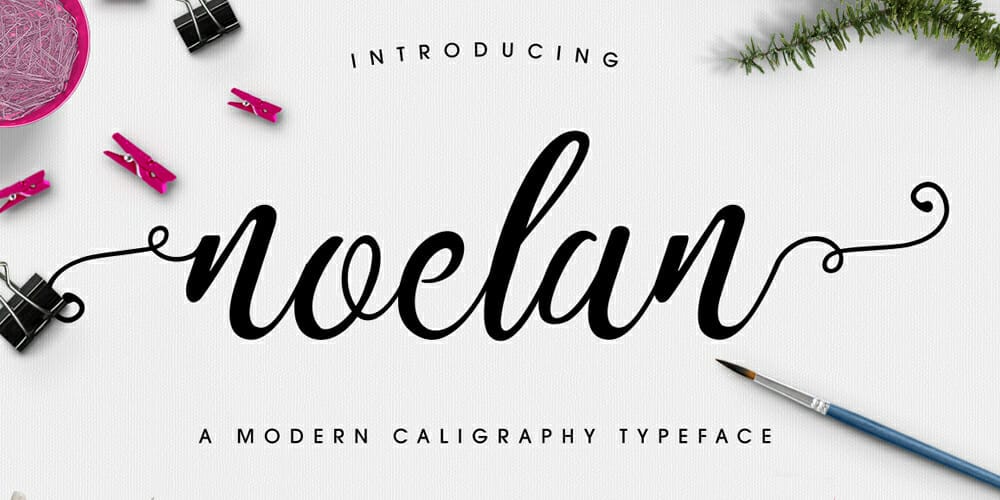
Chunkfive
If you’re looking for a bold, attention-grabbing font, Chunkfive is an excellent choice. This slab serif font is perfect for video titles and headers, thanks to its thick, sturdy letterforms. It’s ideal for projects that require a strong visual impact, such as action-packed trailers or social media ads. Chunkfive’s modern yet classic design makes it a versatile option for Alight Motion fonts, ensuring your text stands out in any video.
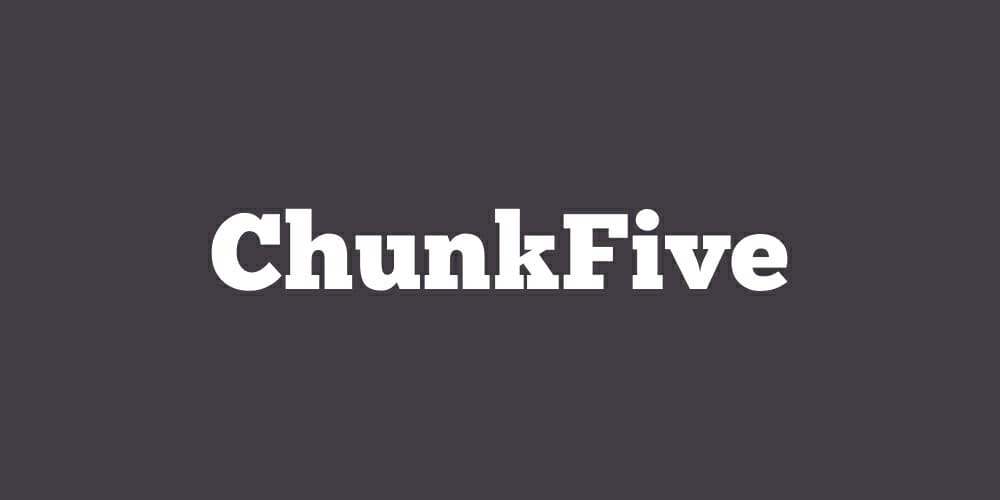
Rusty The Buttcher
For a gritty, edgy vibe, Rusty The Buttcher is a standout font. Its rough, hand-drawn style is perfect for projects that need a raw, authentic feel, such as indie films, music videos, or urban-themed content. This font works exceptionally well in Alight Motion for adding a bold, artistic touch to your text overlays. Download it now to give your videos a unique, rugged aesthetic.
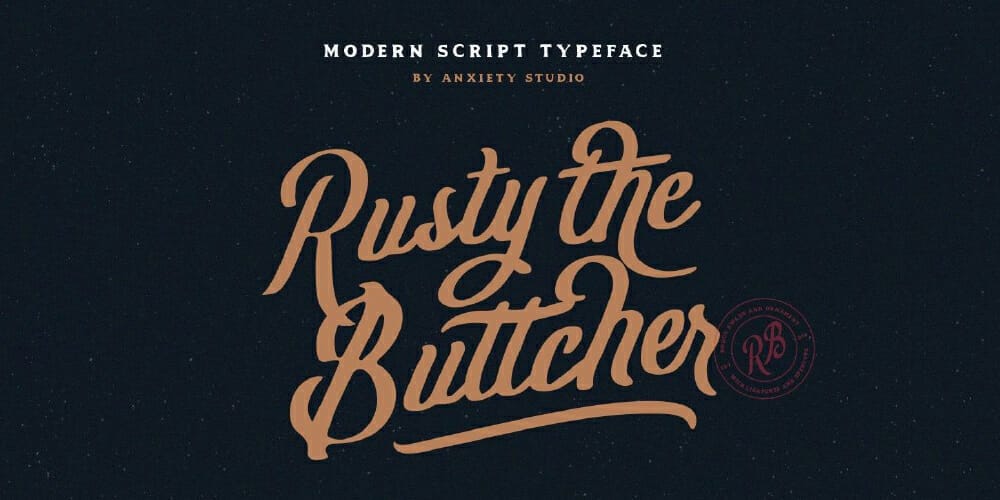
Cunia
Cunia is a modern sans-serif font that combines simplicity with elegance. Its clean, geometric design makes it a great choice for Alight Motion text styles, especially for minimalist or corporate video projects. Whether you’re creating a sleek presentation or a modern promo video, Cunia’s balanced letterforms ensure readability and style. Add this font to your toolkit for a professional, contemporary look.
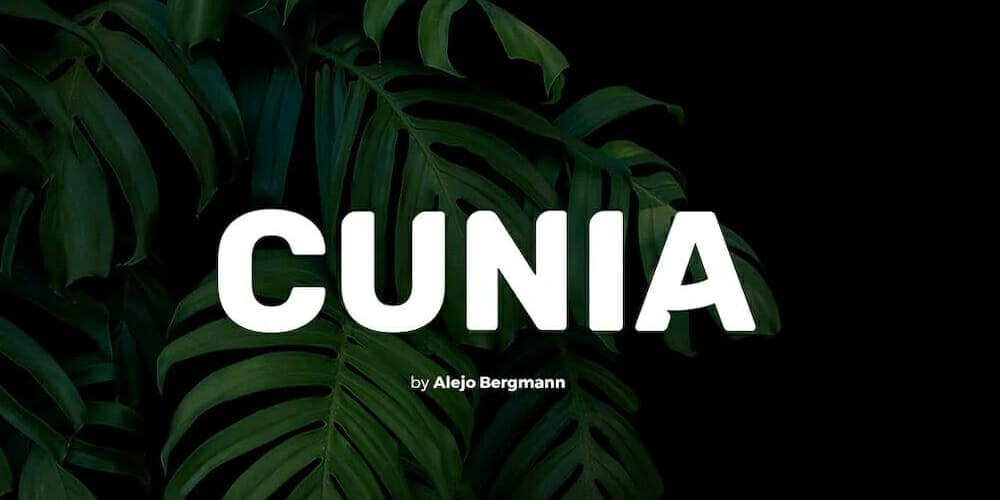
Nexa
Nexa is a versatile and modern font that’s perfect for video editing. Its sleek, sans-serif design makes it ideal for titles, subtitles, and captions in Alight Motion. Nexa’s clean lines and neutral aesthetic make it suitable for a wide range of projects, from tech reviews to fashion videos. Download Nexa today to give your videos a polished, modern edge.
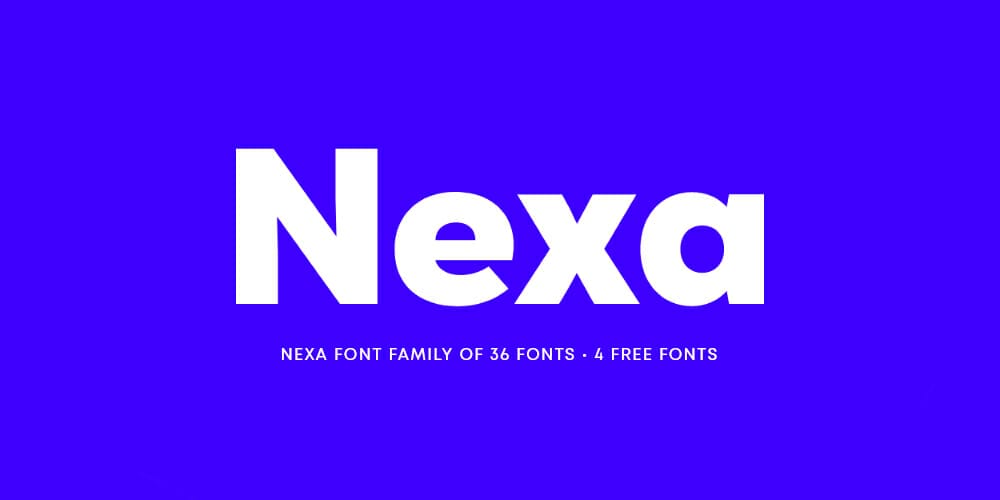
Grand Hotel
Grand Hotel is a stylish script font that exudes elegance and charm. Its retro-inspired design makes it perfect for vintage-themed videos, wedding films, or any project that requires a touch of class. In Alight Motion, Grand Hotel can be used for titles, invitations, or branding elements. Its flowing, cursive style adds a sophisticated flair to your video typography.